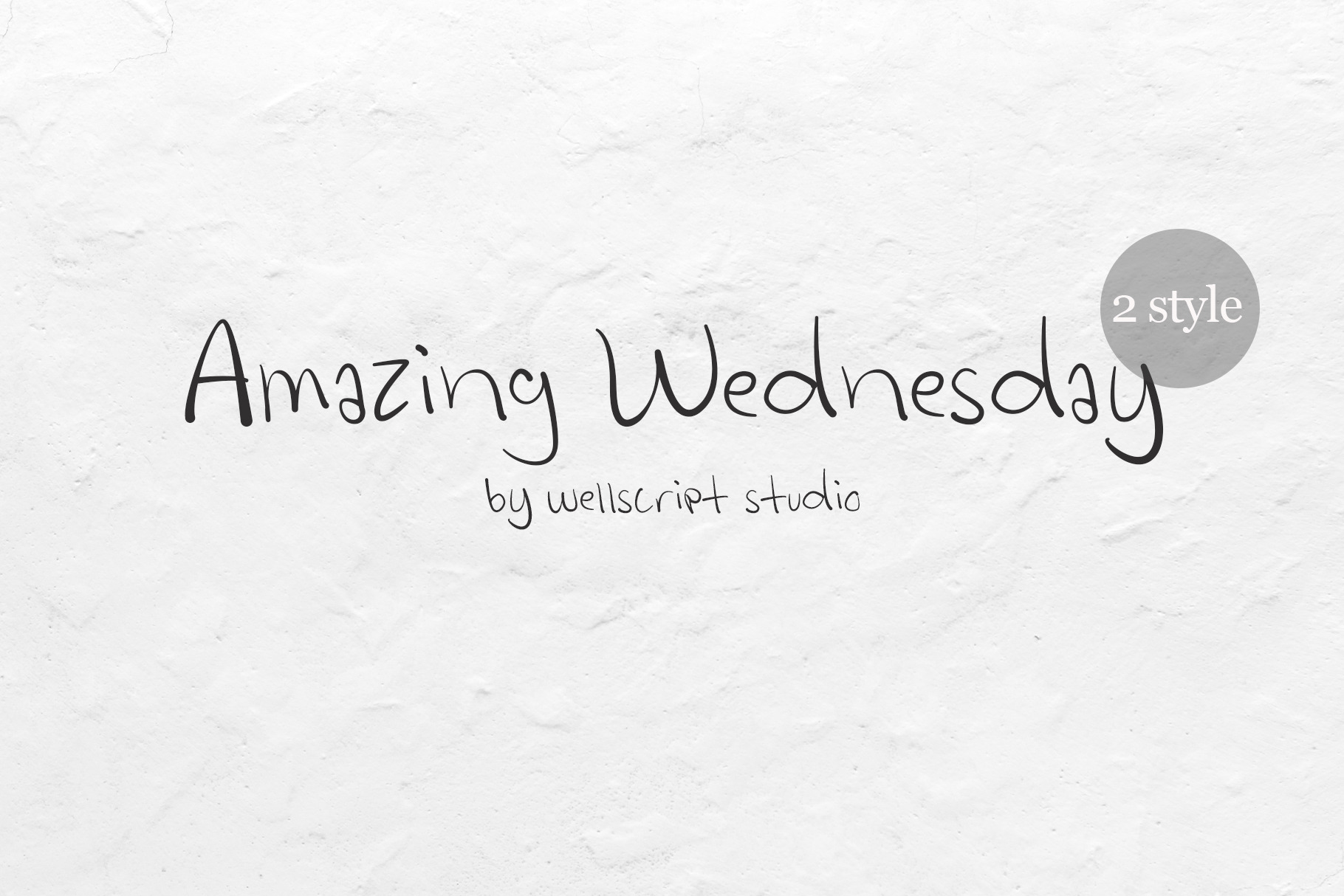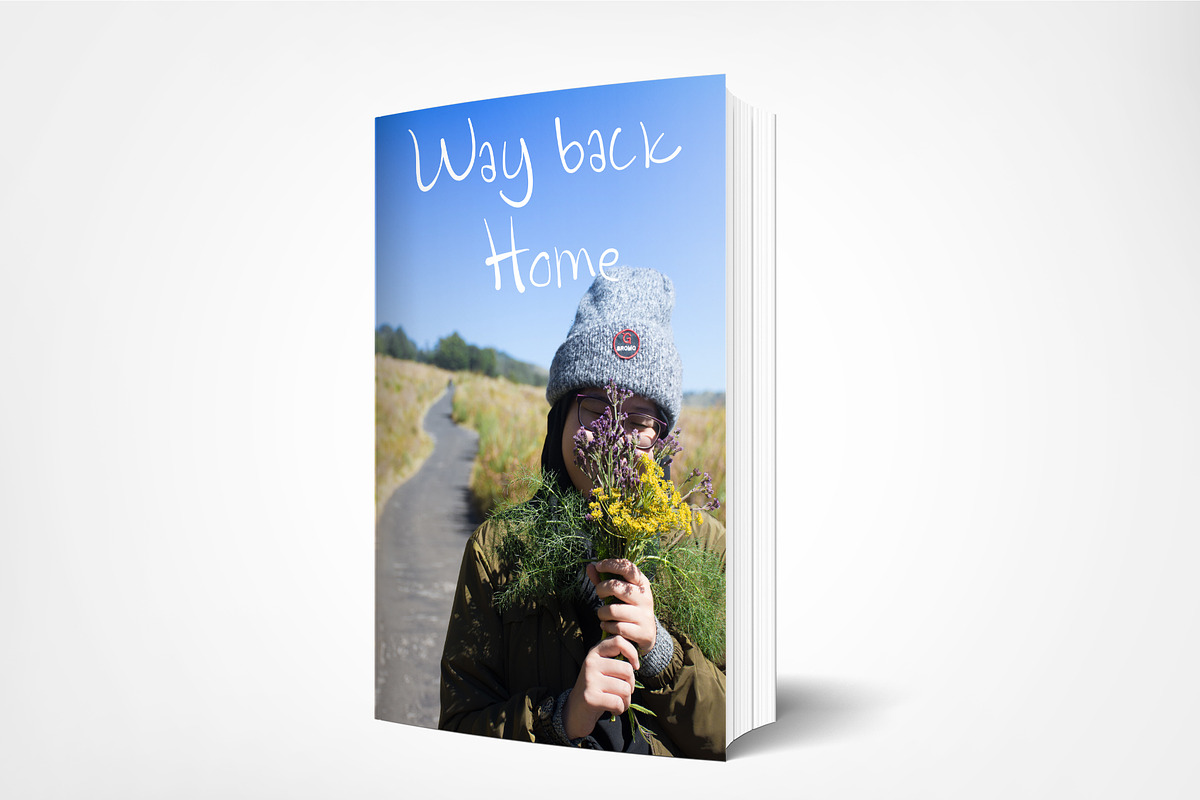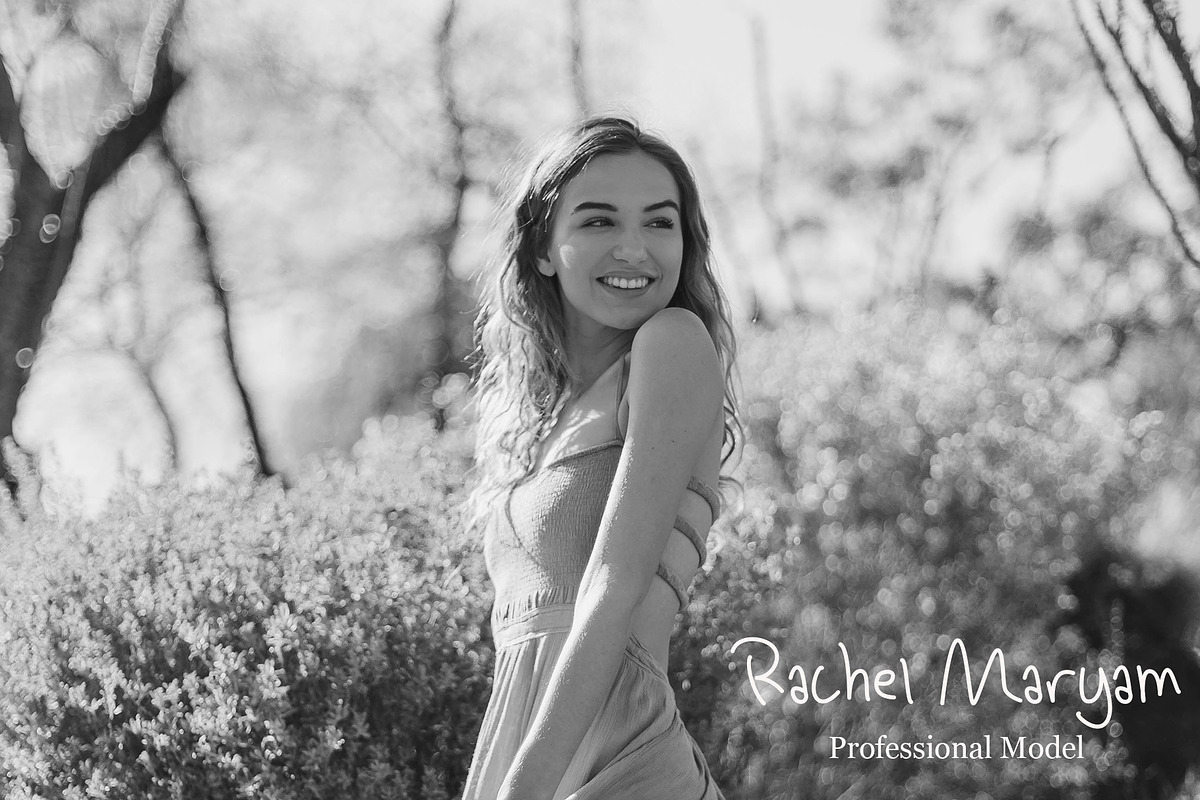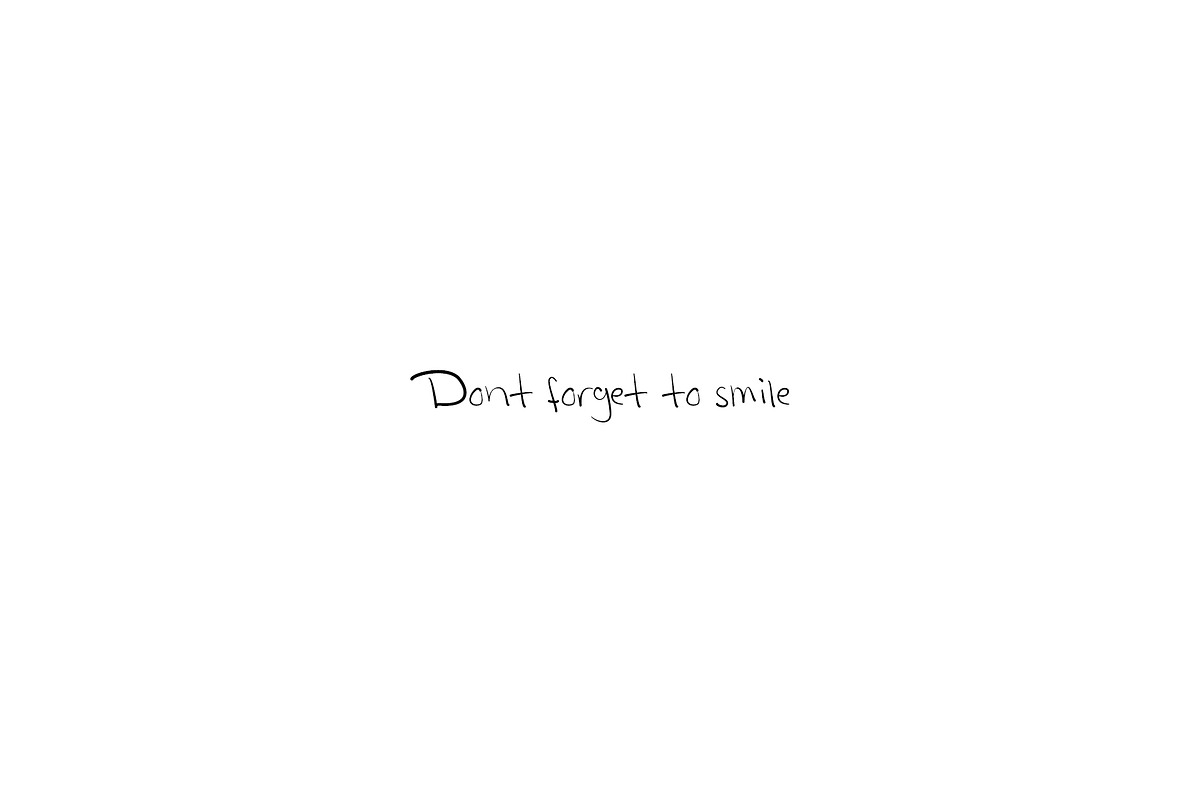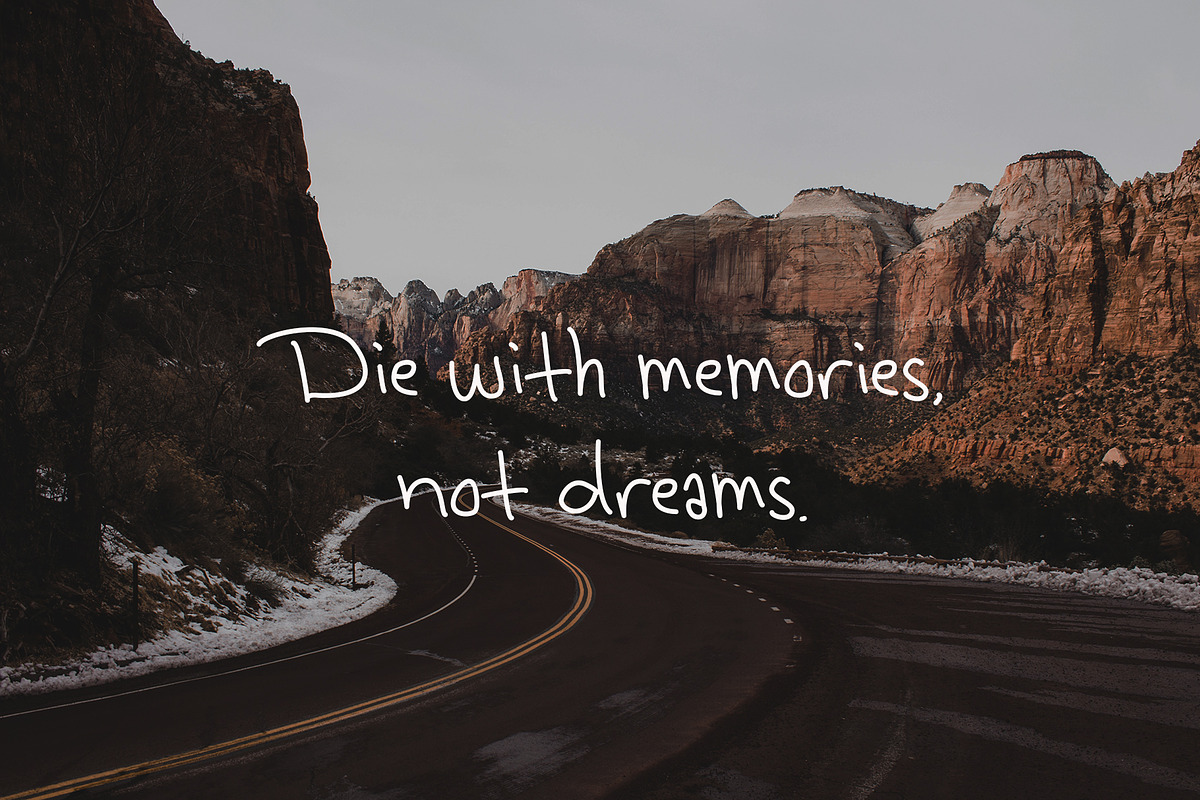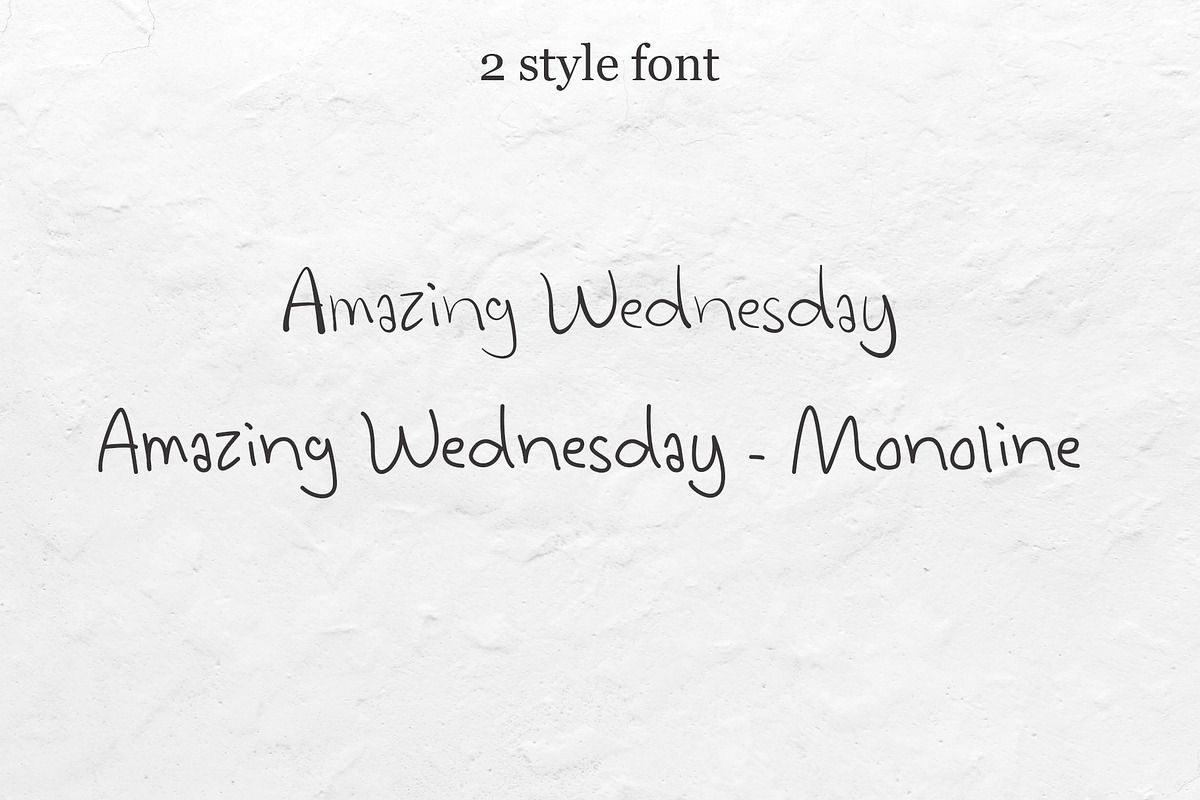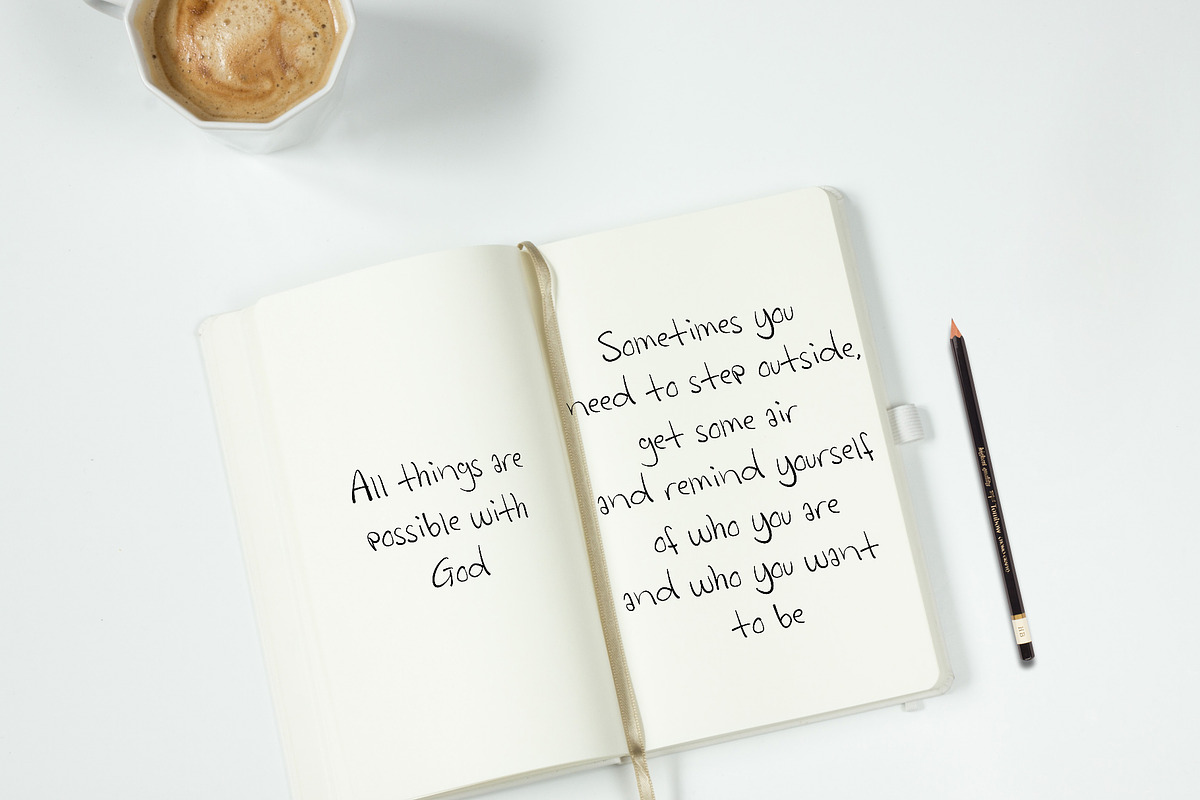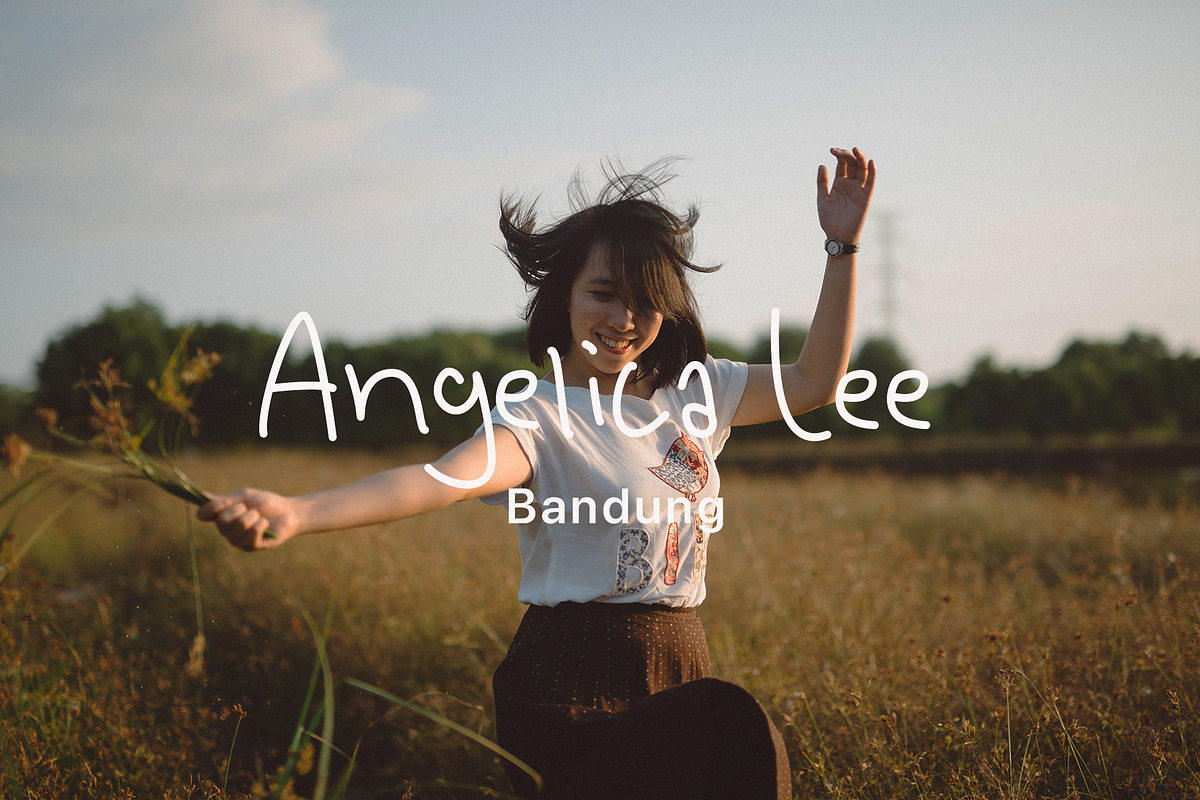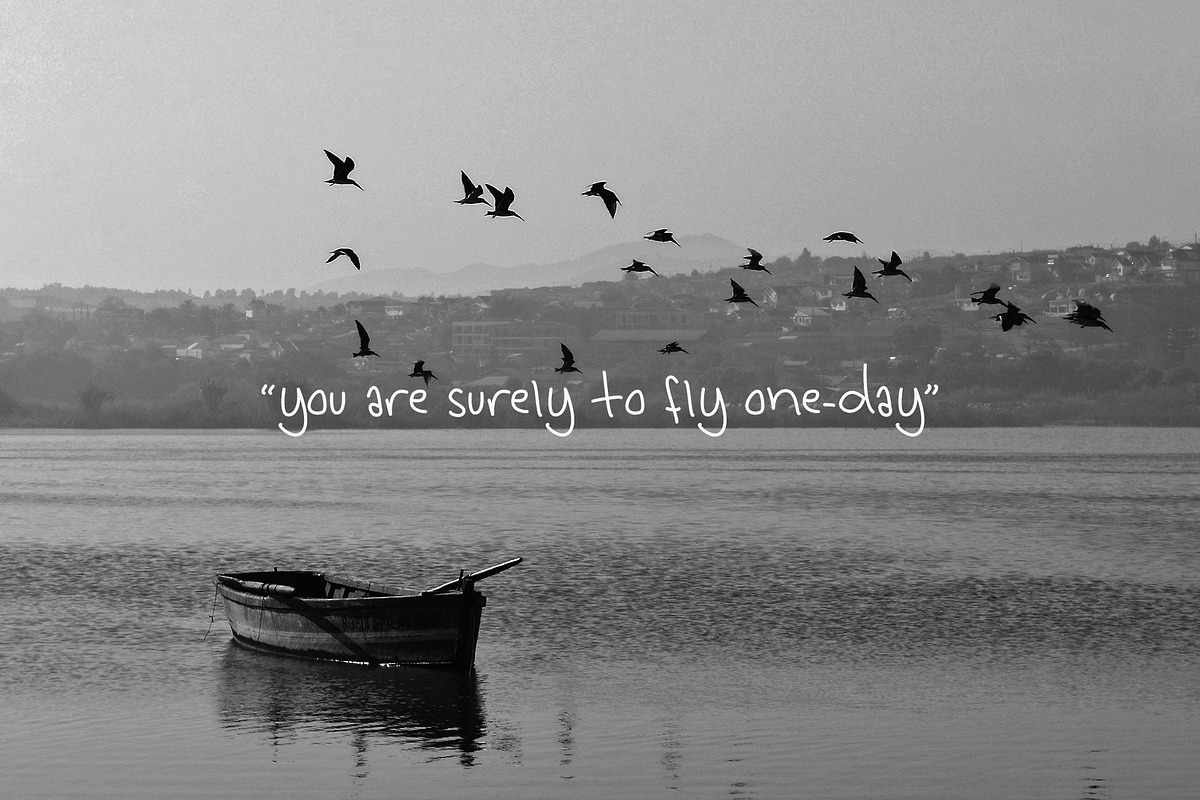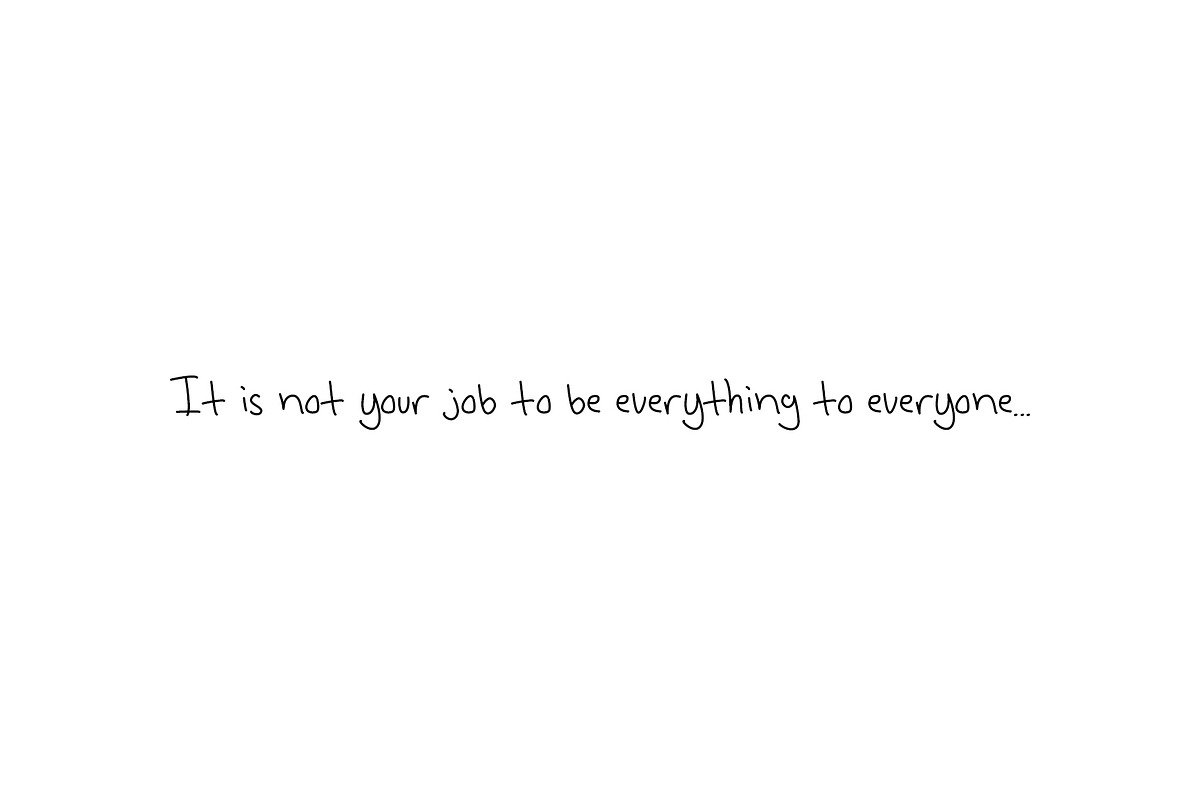
Amazing Wednesday - Handwritten Font
Amazing Wednesday is an simple handwritten font. It has an unique flow with 2 style. This collection of script is perfect for book, notes, quotes, valentine, wedding and branding. This works well for many applications. Everything from branding, wedding invitations, social media posts, advertisements, product packaging, product designs, label, photography, watermark, invitation, stationery and any projects that need handwriting taste. Amazing Wednesday includes full set of gorgeous uppercase and lowercase letters, numerals, a large range of punctuation and multillingual support.